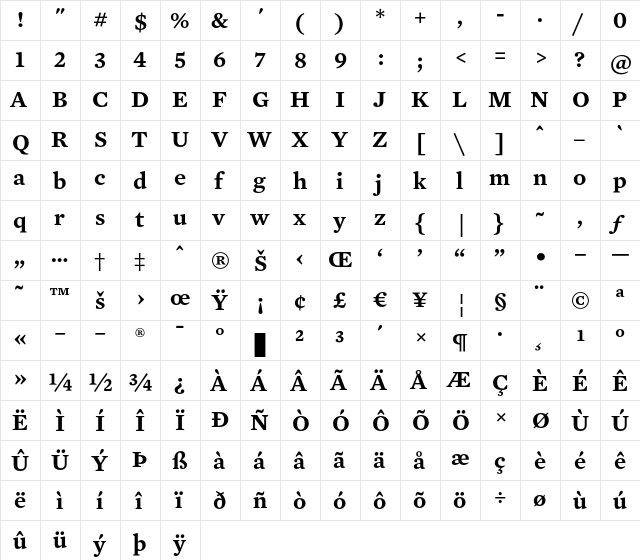
Mercury Text G4 Semibold
Design Context for Mercury Text G4 Typeface
Mercury Text G4 takes a measured approach to typography — its balanced proportions and neutral character make it a reliable workhorse for both digital and print work. Its bold stroke weight gives it real presence on the page.